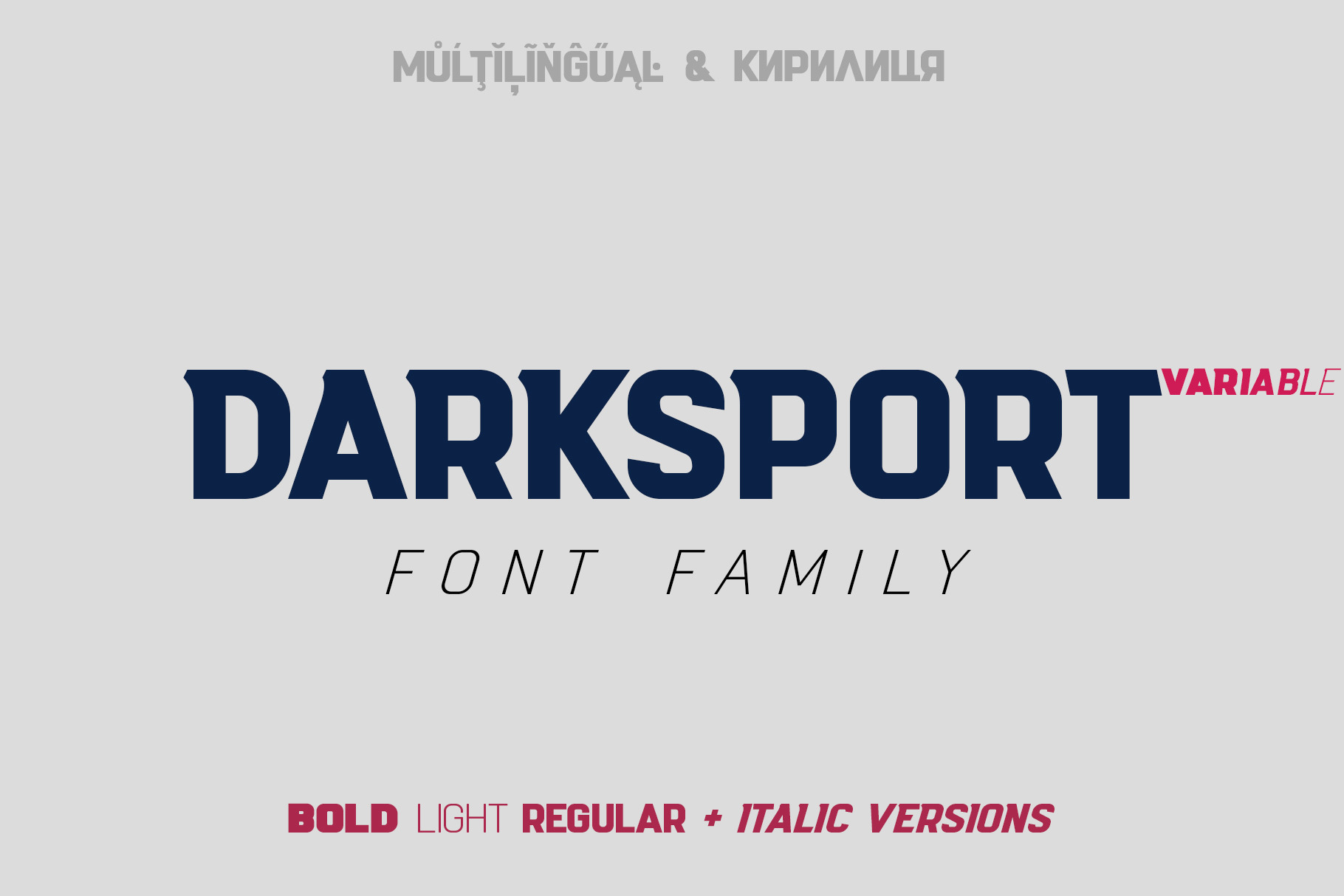
Darksport Font Family Variable
Darksport is an authentic sports branding Font Family of six fonts. It is perfect for sports logos, posters, labels and much more. There is also Variable Version included!
There is a stylistic difference between Uppercase and Lowercase letters (see the preview images).
Multilingual support (LatinPro & Slavian Cyrillic).
Supported Languages: Bosnian, Catalan, Czech, Danish, German, English, Spanish, Estonian, Finnish, French, Irish, Croatian, Hungarian, Icelandic, Italian, Lithuanian, Latvian, Maltese, Norwegian, Polish, Portuguese, Romanian, Slovak, Slovenian, Albanian, Swedish, Turkish, Ukrainian, Belarusian, Bulgarian, Macedonian, Rusyn, Russian, Serbo-Croatian.